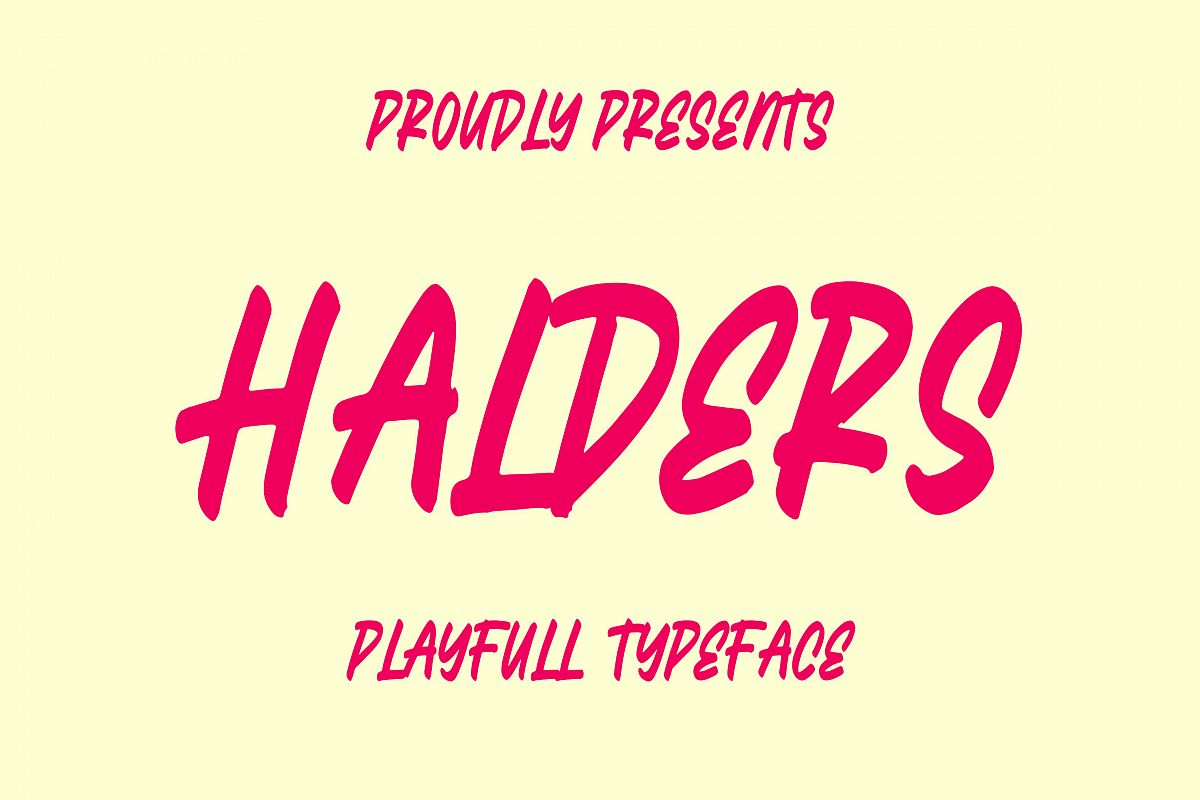
Introducing of our new product the name is Halders Playfull Typeface. Halders good for logotype, label, badge, headline, signature, packaging and any more.